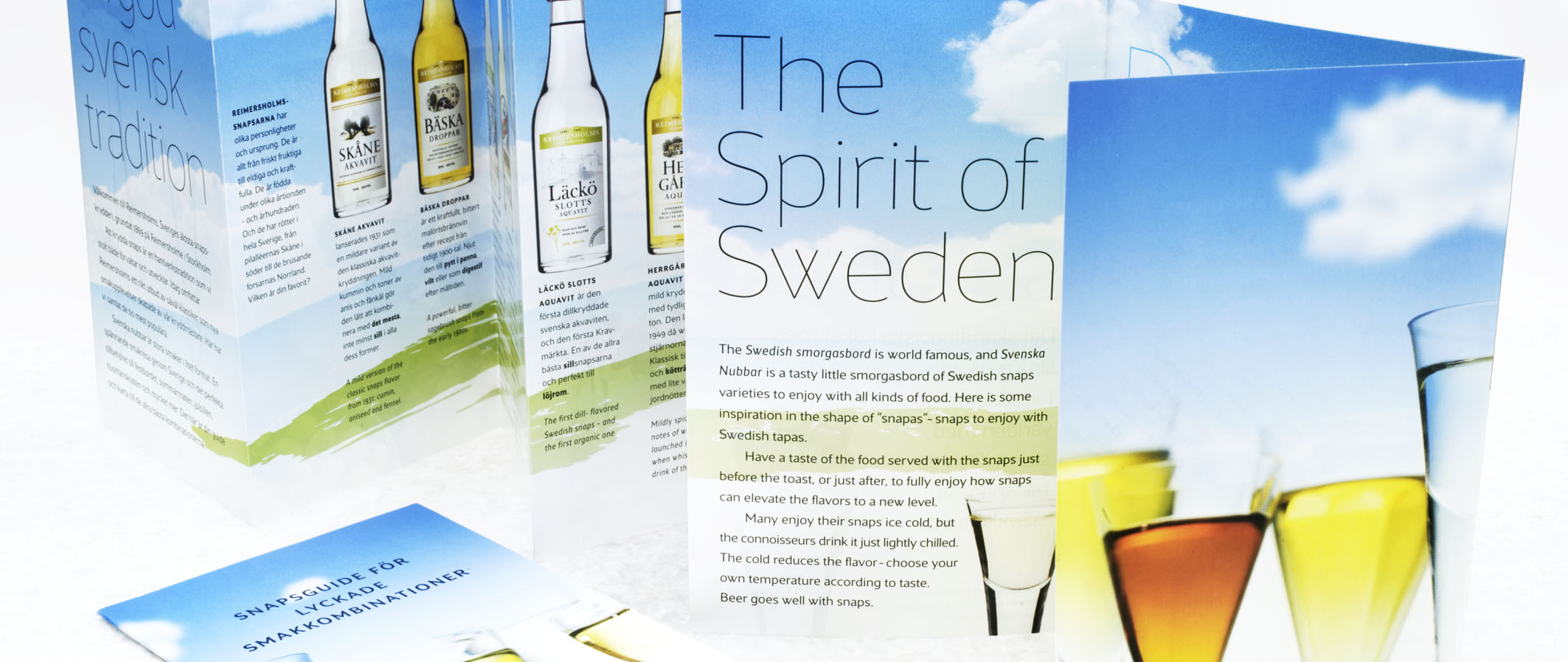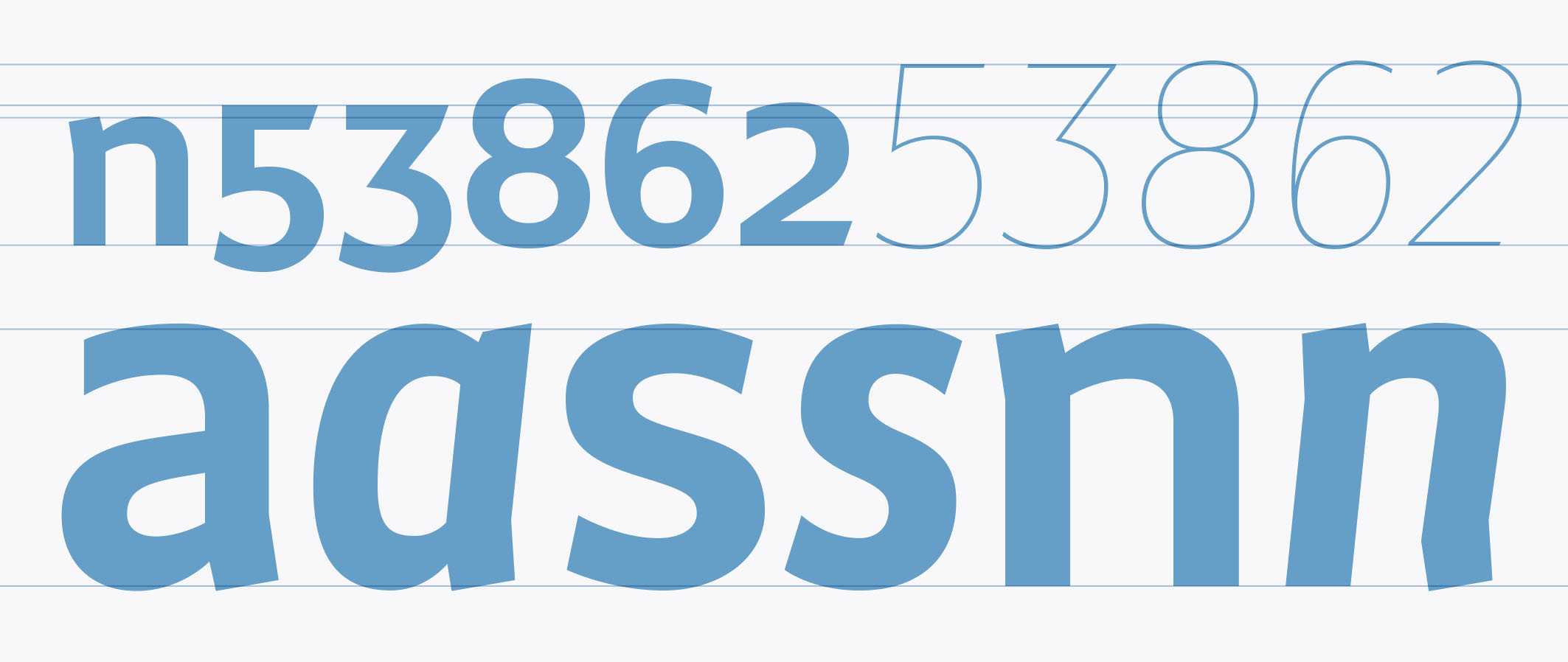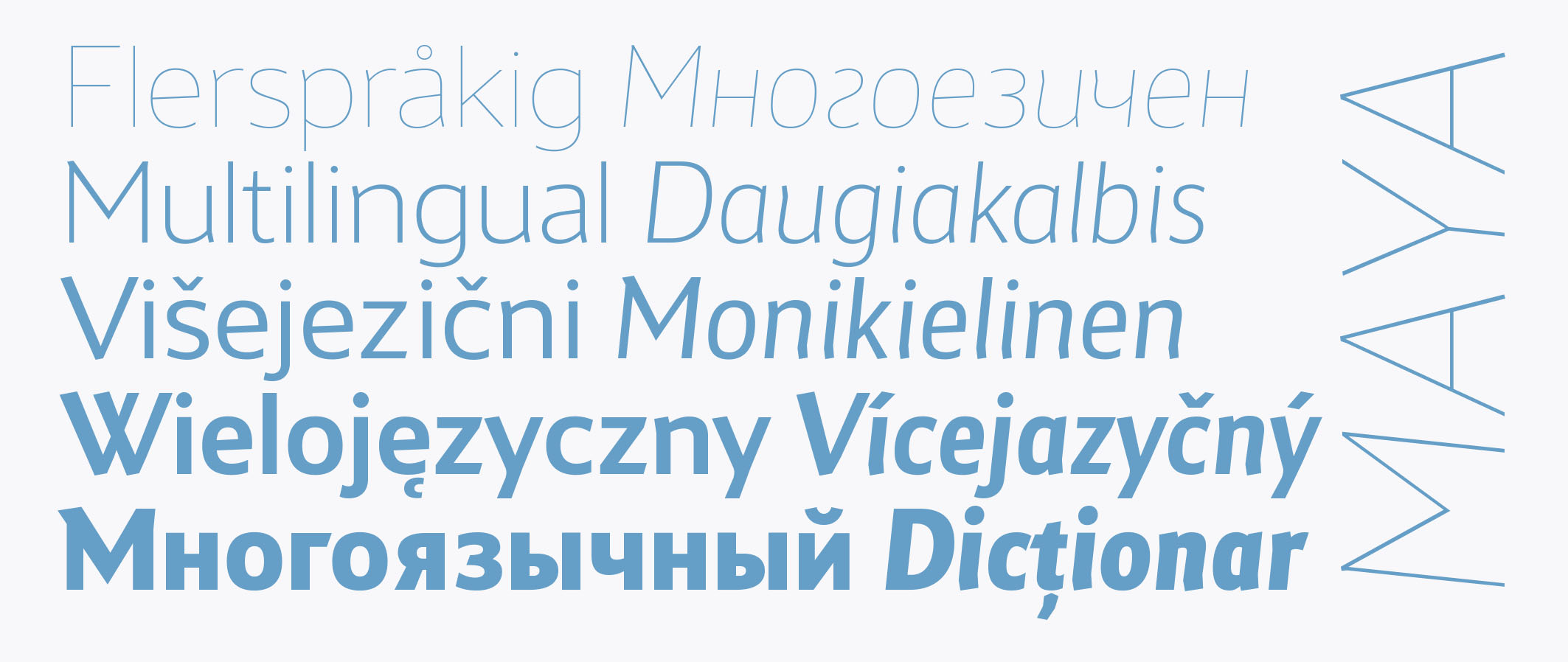
Maya Samuels Pro II
Maya Samuels was designed in a simplified and unpretentious style, using diagonal cuts and broken verticals. It never losing hold of the overall imact and readability, creating a harmonius text flow and lively shapes in headlines.
With an italic backing it up perfectly and five weights from thin to bold it is a perfect design toolbox.